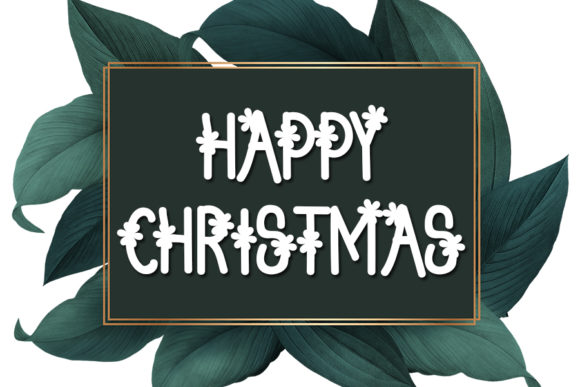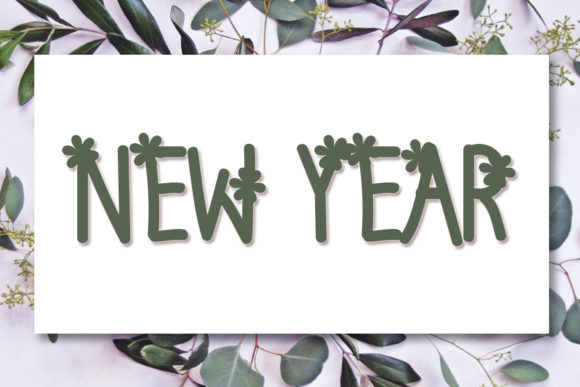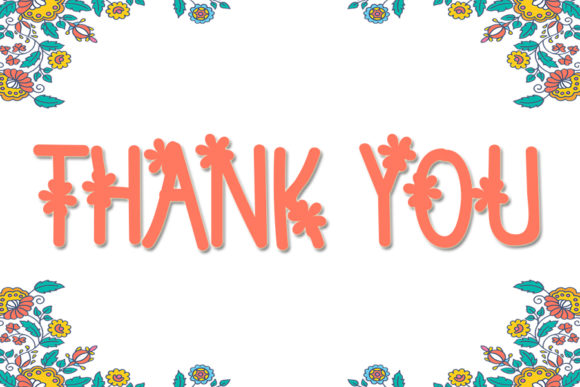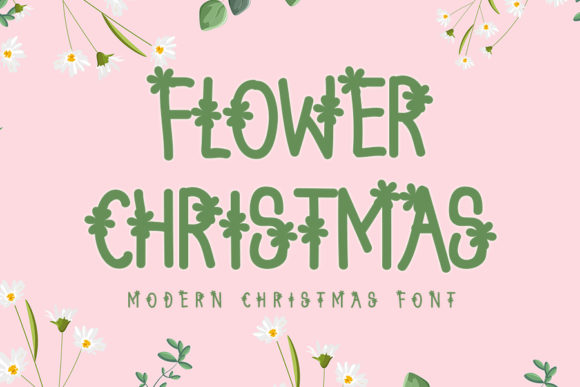
Introducing Flower Christmas Font: The Perfect Addition to Your Holiday Designs
Are you looking for a font that captures the essence of the holiday season? Do you want to add a touch of elegance and whimsy to your designs? Look no further than the Flower Christmas Font, a beautiful and versatile display font that’s perfect for a wide range of informal designs.
What is Flower Christmas Font?
Flower Christmas Font is a simple, tall, and natural display font that features sweet flower ornaments. Its clean style and delicate charm make it an ideal choice for designers and crafters who want to add a personal touch to their projects. Whether you’re creating holiday cards, gift tags, or social media graphics, this font is sure to impress.
Key Features of Flower Christmas Font
• Simple and Elegant Design: Flower Christmas Font boasts a clean and minimalist design that’s perfect for creating beautiful and eye-catching graphics.
• Tall and Natural: The font’s tall and natural style gives it a unique and distinctive look that’s sure to stand out.
• Sweet Flower Ornaments: The font features sweet flower ornaments that add a touch of whimsy and elegance to your designs.
• Clean Style: The font’s clean style makes it easy to read and versatile enough to use in a wide range of designs.
• Informal and Versatile: Flower Christmas Font is perfect for informal designs, including holiday cards, gift tags, social media graphics, and more.
Why Choose Flower Christmas Font?
There are many reasons why Flower Christmas Font is an excellent choice for designers and crafters. Here are just a few:
• High-Quality Design: The font is designed with high-quality and precision, ensuring that your designs look professional and polished.
• Unique and Eye-Catching: The font’s unique and eye-catching design is sure to grab attention and make your designs stand out.
• Perfect for Holiday Designs: The font is specifically designed for holiday designs, making it a perfect choice for Christmas cards, gift tags, and more.
Tips and Inspiration for Using Flower Christmas Font
Here are a few tips and inspiration for using Flower Christmas Font:
• Pair with Other Fonts: Pair Flower Christmas Font with other fonts to create a unique and eye-catching design.
• Use in Combination with Images: Use the font in combination with images, such as photos or illustrations, to create a visually appealing design.
• Experiment with Colors: Experiment with different colors and textures to add depth and interest to your design.
• Create a Holiday-Themed Design: Create a holiday-themed design, such as a Christmas card or gift tag, using the font and other festive elements.
Flower Christmas Font is a beautiful and versatile display font that’s perfect for a wide range of informal designs. Its clean style, sweet flower ornaments, and elegant charm make it an excellent choice for designers and crafters who want to add a personal touch to their projects. With its ease of use, high-quality design, and unique and eye-catching style, Flower Christmas Font is sure to become a favorite in your design arsenal.